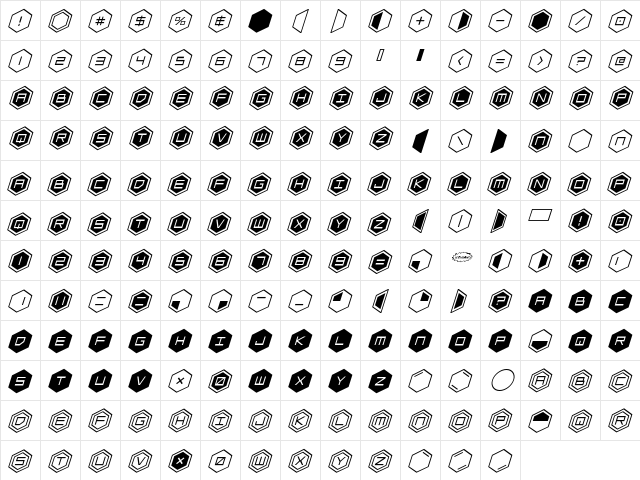
HEX:gon Staggered 2 Italic Italic
Design Context for HEX:gon Staggered 2 Italic Typeface
HEX:gon Staggered 2 Italic is a composed and adaptable typeface that performs quietly and consistently across a wide range of design contexts. Its italic angle brings a sense of urgency and motion to the letterforms.
Pro Tip: Use HEX:gon Staggered 2 Italic for emphasis, pull quotes, and subheadings where its slanted energy can add rhythm to the layout.